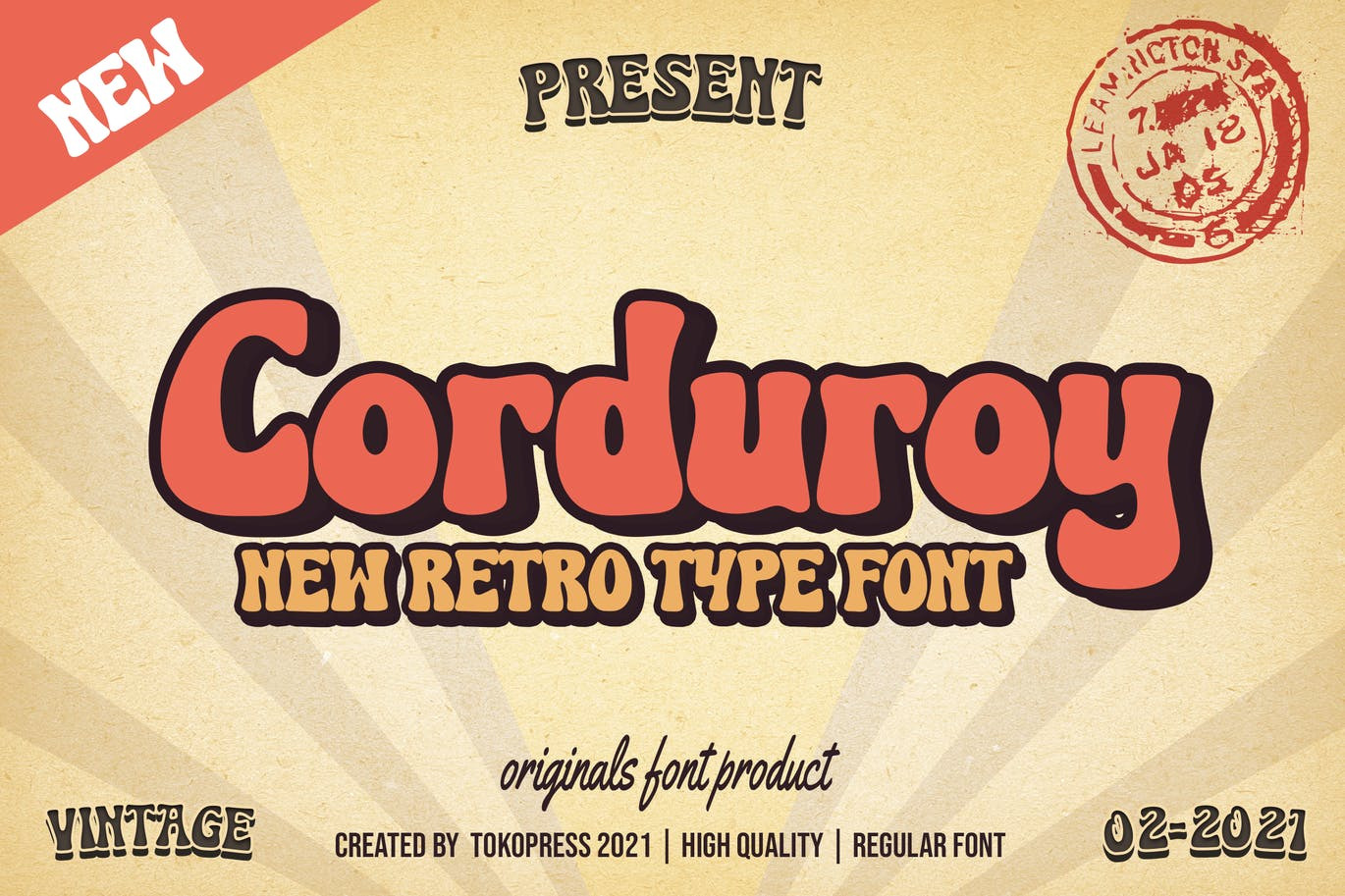
Corduroy - Classic Groovy font
Imagine that you are on the dance floor, with bell-bottom trousers, that skin-tight shirt, large sunglasses, and just grooving through the music. That's what Corduroy is all about.
Suit perfectly for Retro and vintage segmented magazine, poster, movie title, music poster, youtube covers, youtube thumbnails, social media page covers and so on...